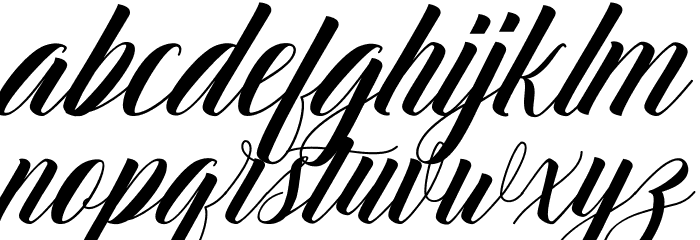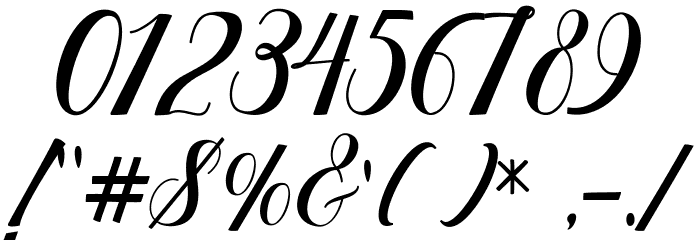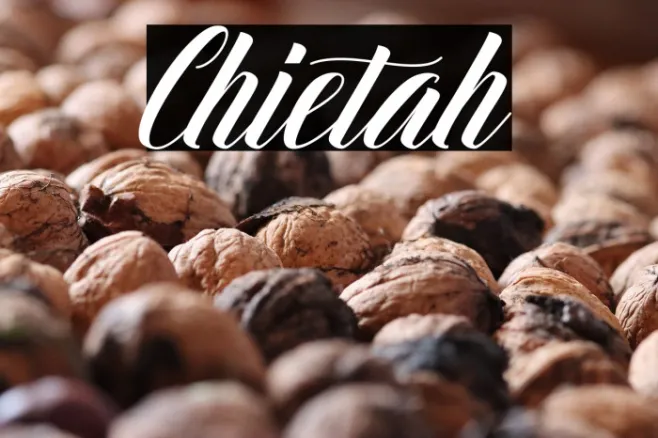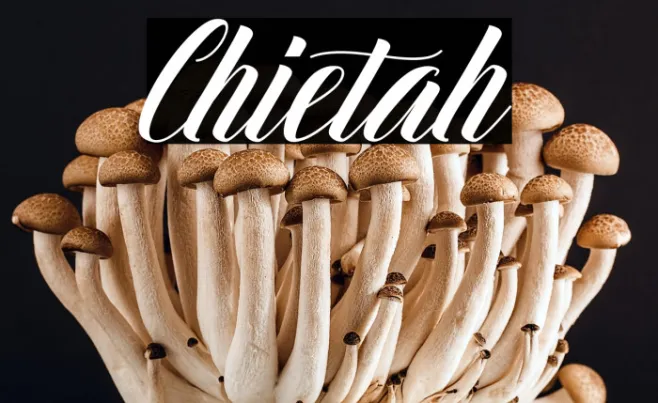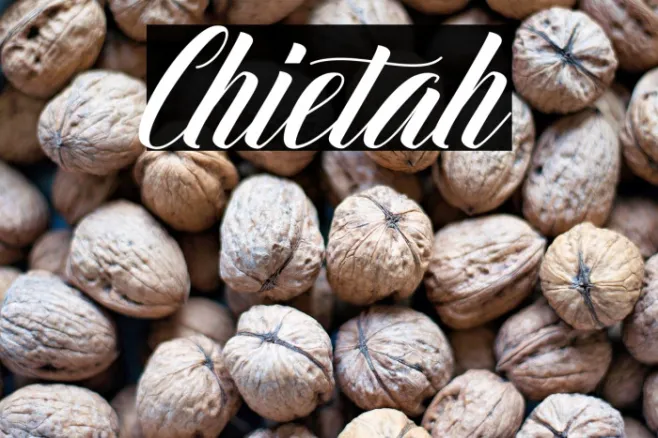
Chietah Font
This font features a dynamic and elegant script style, characterized by its fluid, cursive letterforms. The uppercase letters exhibit a graceful flow with elongated strokes, while the lowercase letters maintain a consistent rhythm, enhancing readability. The numerals are stylishly integrated, complementing the overall aesthetic. Special characters are thoughtfully designed, maintaining the font's cohesive look. The font's design is both sophisticated and approachable, making it suitable for a variety of creative applications.
A dynamic and elegant script font with fluid, cursive letterforms.
- Font: Chietah
- Proposed Projects: Ideal for wedding invitations, branding, greeting cards, and elegant packaging designs.
- Category: Script
- Overall Style: Elegant
- Use Case: Logos, Invitations, Branding